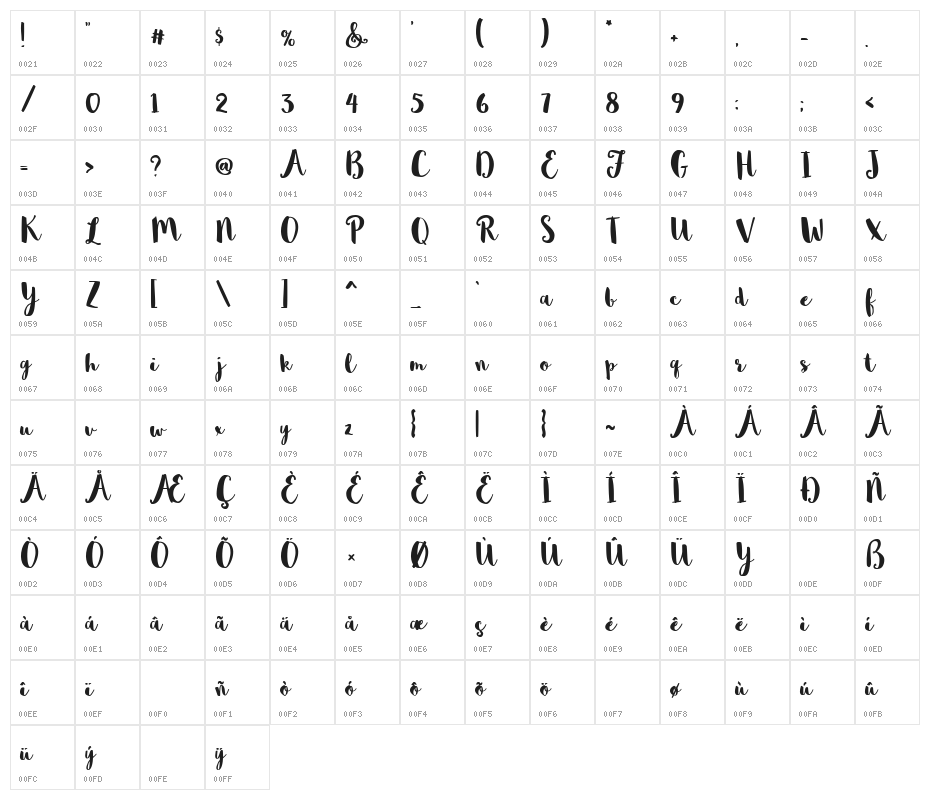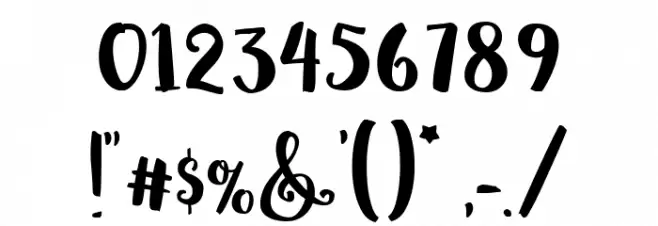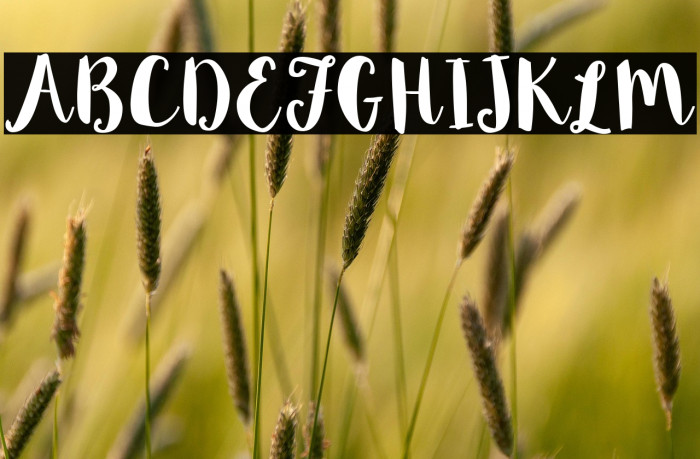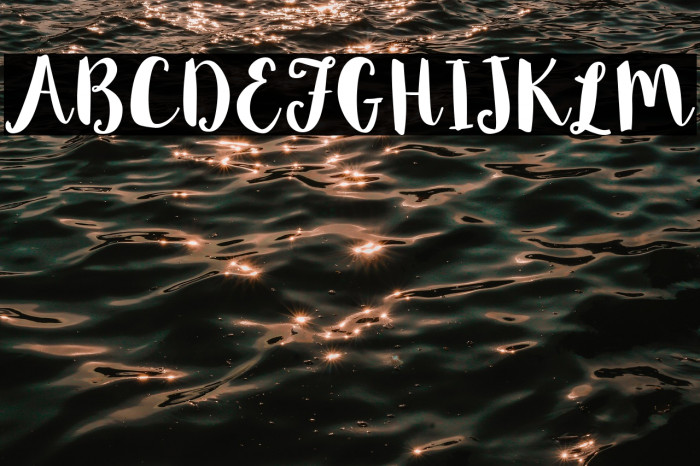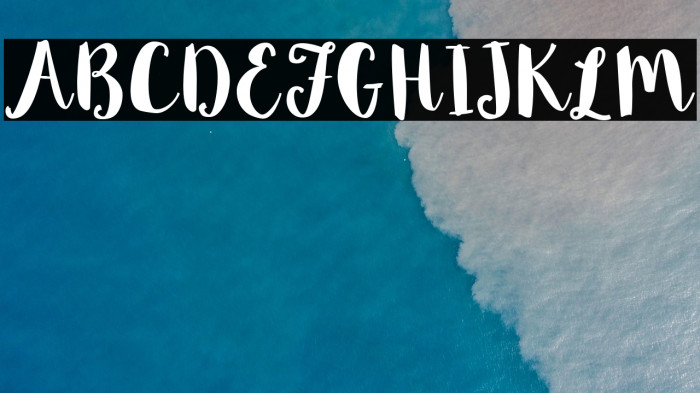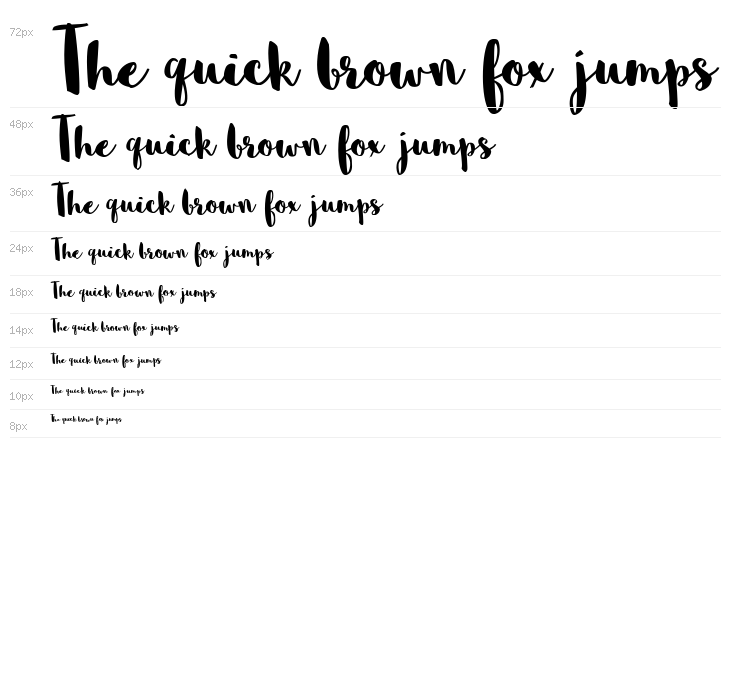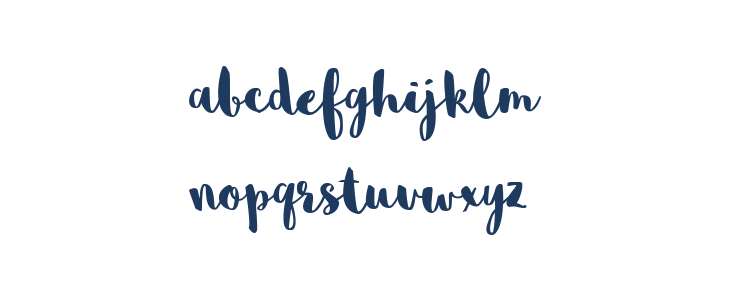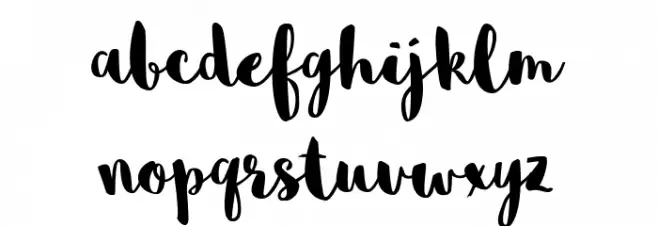
Sophia Font
Sophia Description
This font features a playful and energetic script style with bold, flowing strokes that give it a lively and dynamic appearance. The characters are well-rounded and slightly exaggerated, adding a whimsical touch to the overall design. The uppercase letters are particularly striking, with their tall and confident forms, while the lowercase letters maintain a consistent rhythm and flow. The numerals are equally bold and maintain the playful aesthetic of the font. Special characters are designed with the same attention to detail, ensuring a cohesive look across all glyphs. This font is perfect for projects that require a fun and engaging typeface.
| Overall Style | Playful, Energetic |
| Proposed Projects | Ideal for greeting cards, playful branding, children's books, and creative posters. |